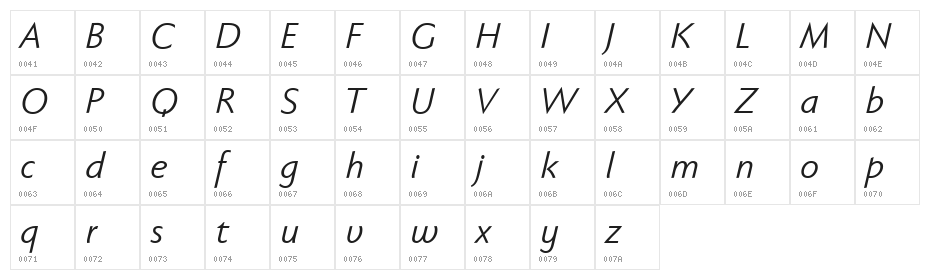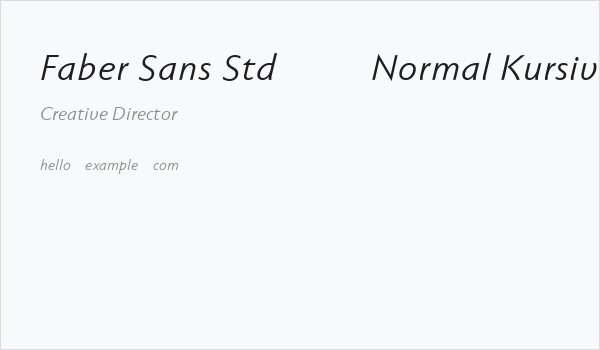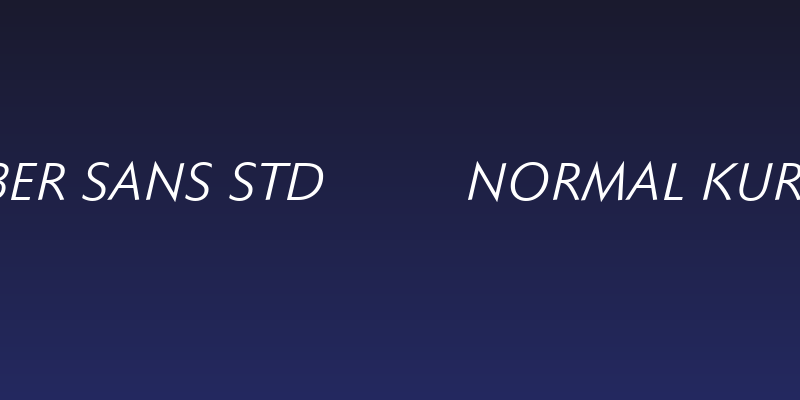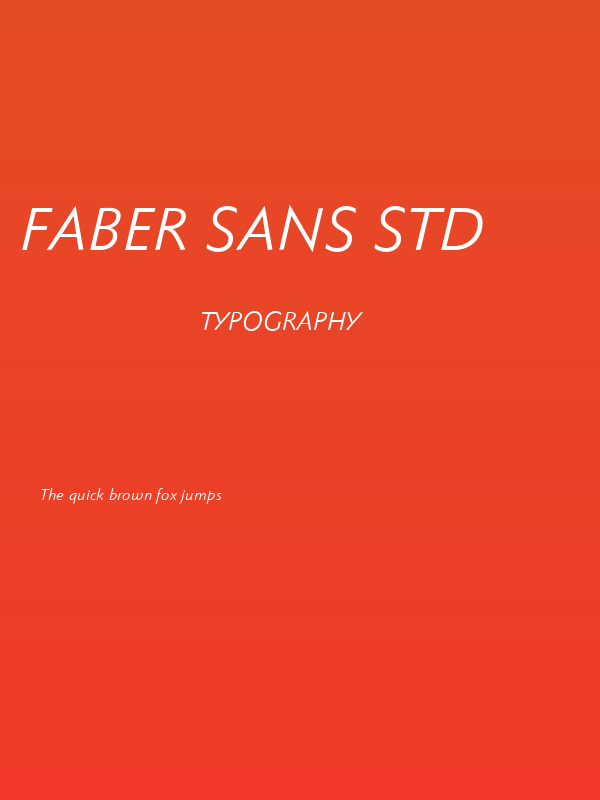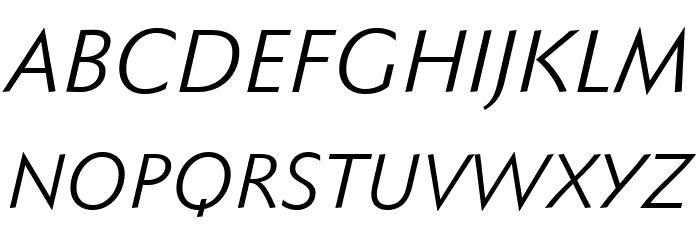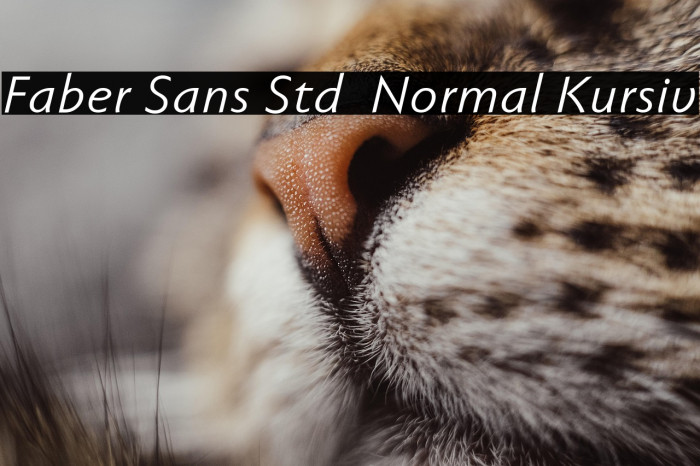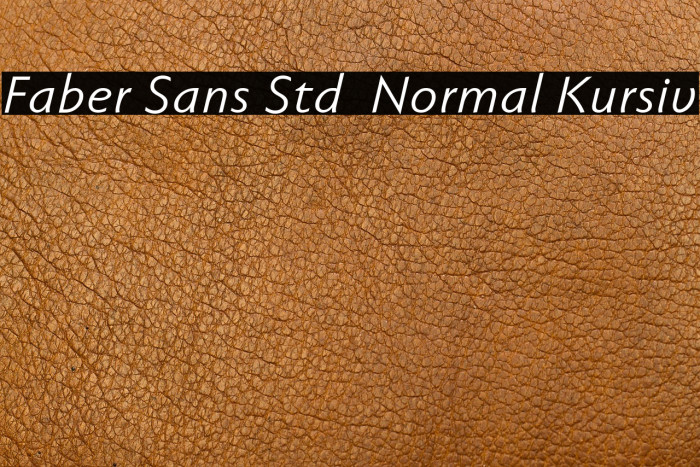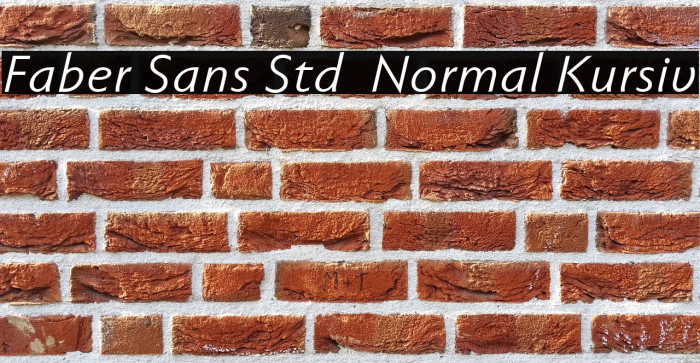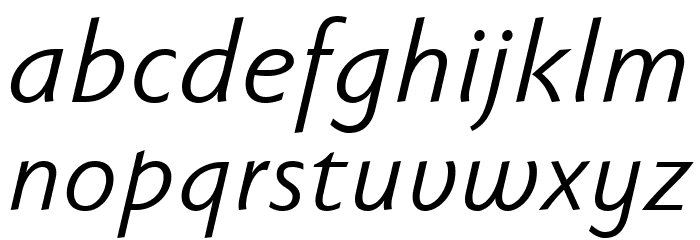
Faber Sans Std 56 Normal Kursiv Font
Faber Sans Std 56 Normal Kursiv Description
This font features a clean and modern sans-serif style with a slight italic slant, giving it a dynamic and elegant appearance. The characters are well-proportioned, with a consistent stroke width that maintains readability across various sizes. The uppercase and lowercase letters are distinct, with a subtle curvature that adds a touch of sophistication. The numbers and special characters are designed to complement the alphabet, ensuring a cohesive look throughout. Its versatility makes it suitable for both digital and print media, providing a professional yet approachable aesthetic.